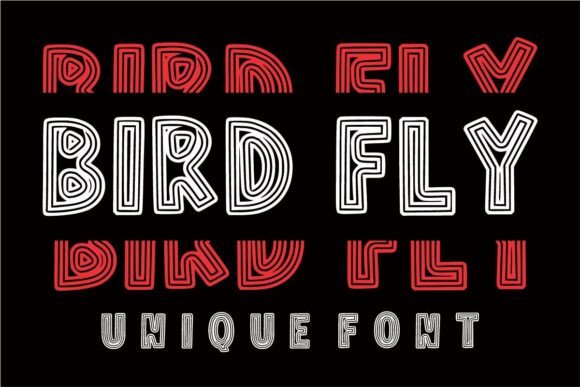
The Bird Fly Font: A Retro Classic for Creative Projects
Have you ever been in the middle of a design project, and suddenly, you’re stuck on finding the perfect font? I recall a recent experience where I was working on a branding project for a vintage-inspired fashion label. The client wanted a font that was retro, bold, and eye-catching. After hours of searching, I stumbled upon the Bird Fly font, and it instantly became the star of the show! In this article, we’ll dive into the world of Bird Fly, exploring its features, uses, and some helpful tips for incorporating it into your creative projects.
A Personal Review of Bird Fly Font
What I Love About Bird Fly ✨
• 💥 Retro and Classic Vibe: Bird Fly has a unique contour layer design that gives it a nostalgic feel, perfect for projects that require a touch of vintage charm.
• ✅ Bold and Eye-Catching: This font is not for the faint of heart! It’s bold, attention-grabbing, and makes a statement.
• 🎨 Versatile: Bird Fly can be used for a wide range of projects, from blog posts and logos to invitations and decorations.
• ⚠️ Limited Online Compatibility: Bird Fly might not work seamlessly with all online platforms, so be sure to test it before using it for web-based projects.
• ⚠️ Glyph Limitations: While Bird Fly has a range of glyphs, it might not have every special character you need. Be sure to review the font’s capabilities before committing to a project.
The Backstory of Bird Fly Font
Bird Fly was designed by a team of creatives who wanted to bring back the classic, retro feel of the past. Inspired by vintage typography and distressed textures, they crafted a font that’s both nostalgic and modern. The result is a bold, eye-catching font that’s perfect for creative projects.
Q: What type of projects can I use Bird Fly for?
A: Bird Fly is versatile and can be used for various projects, such as blog posts, logos, branding, ads, invitations, greeting cards, planners, photo albums, decorations, and more!
Q: Is Bird Fly compatible with all platforms?
A: While Bird Fly works well on most platforms, it might have limited compatibility with some online platforms. Be sure to test it before using it for web-based projects.